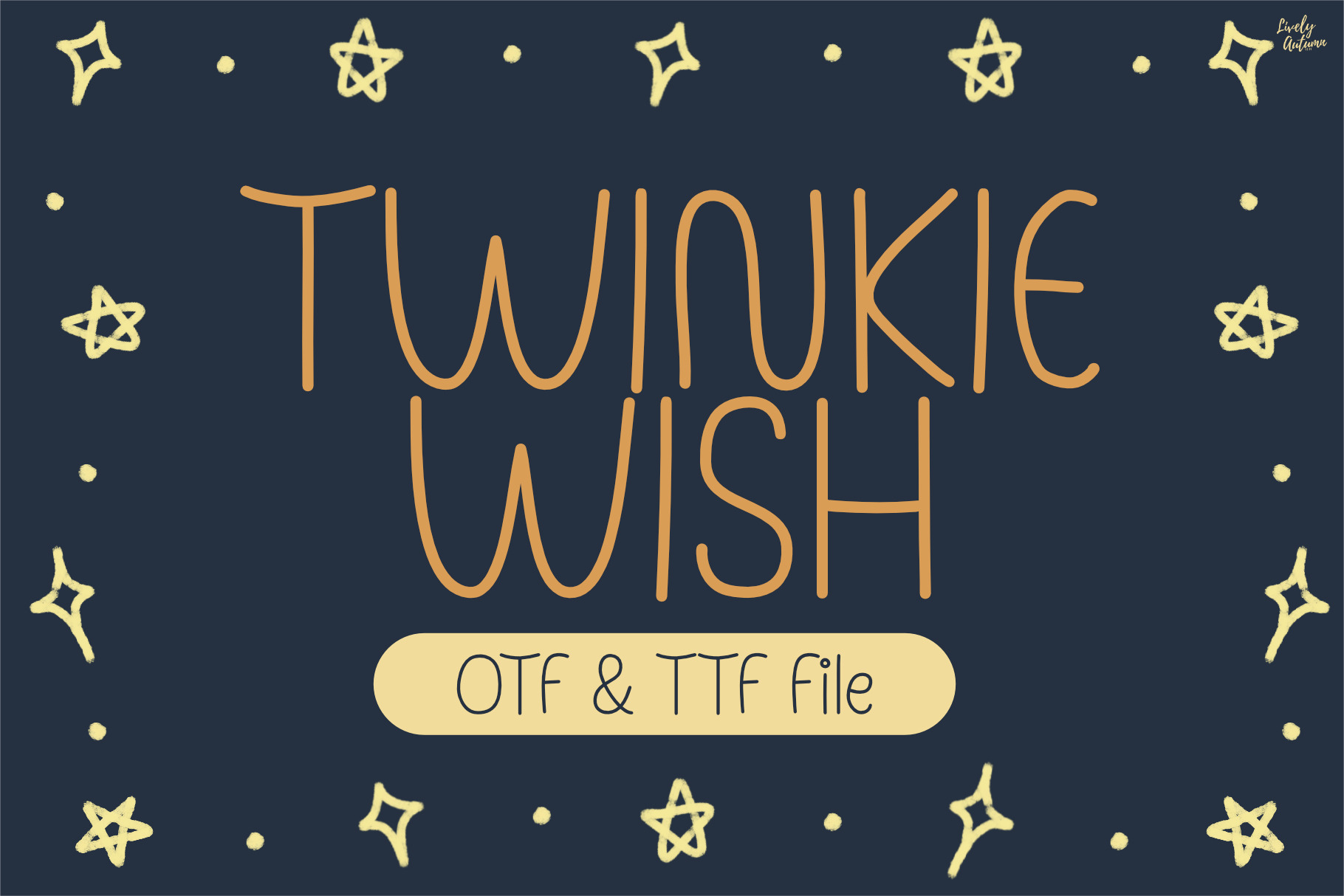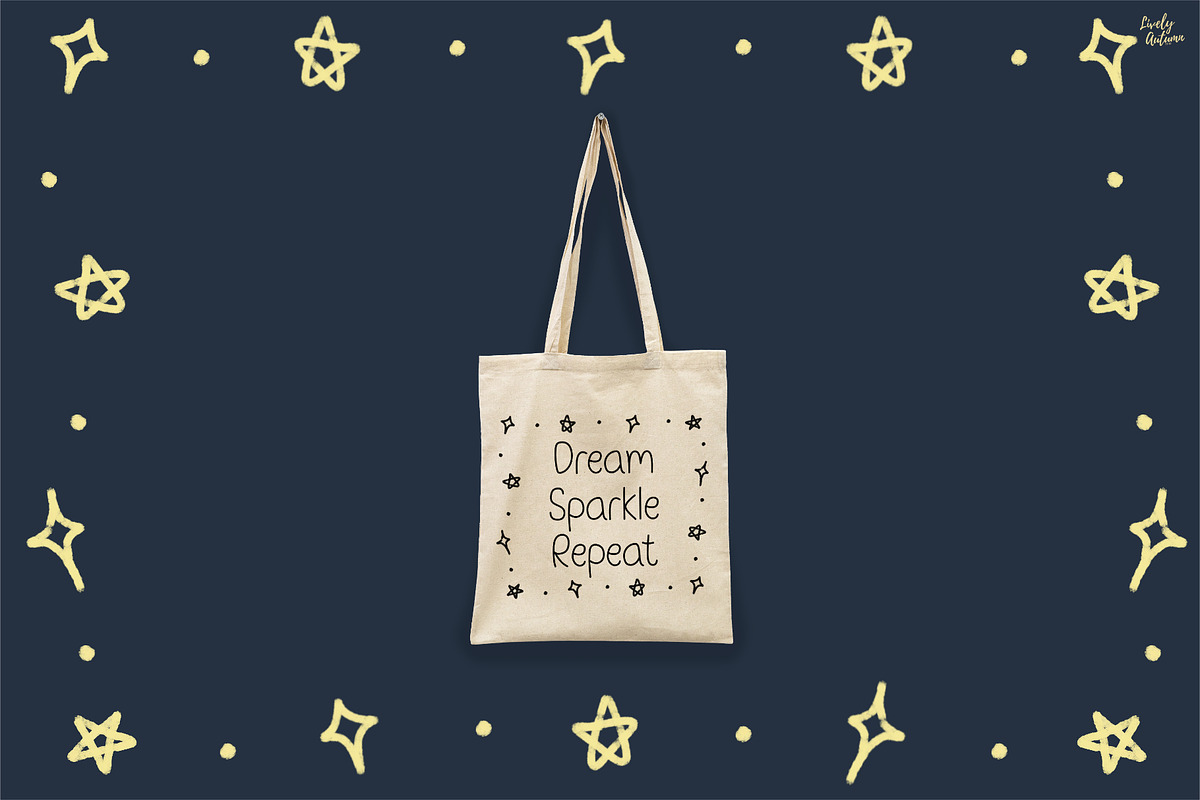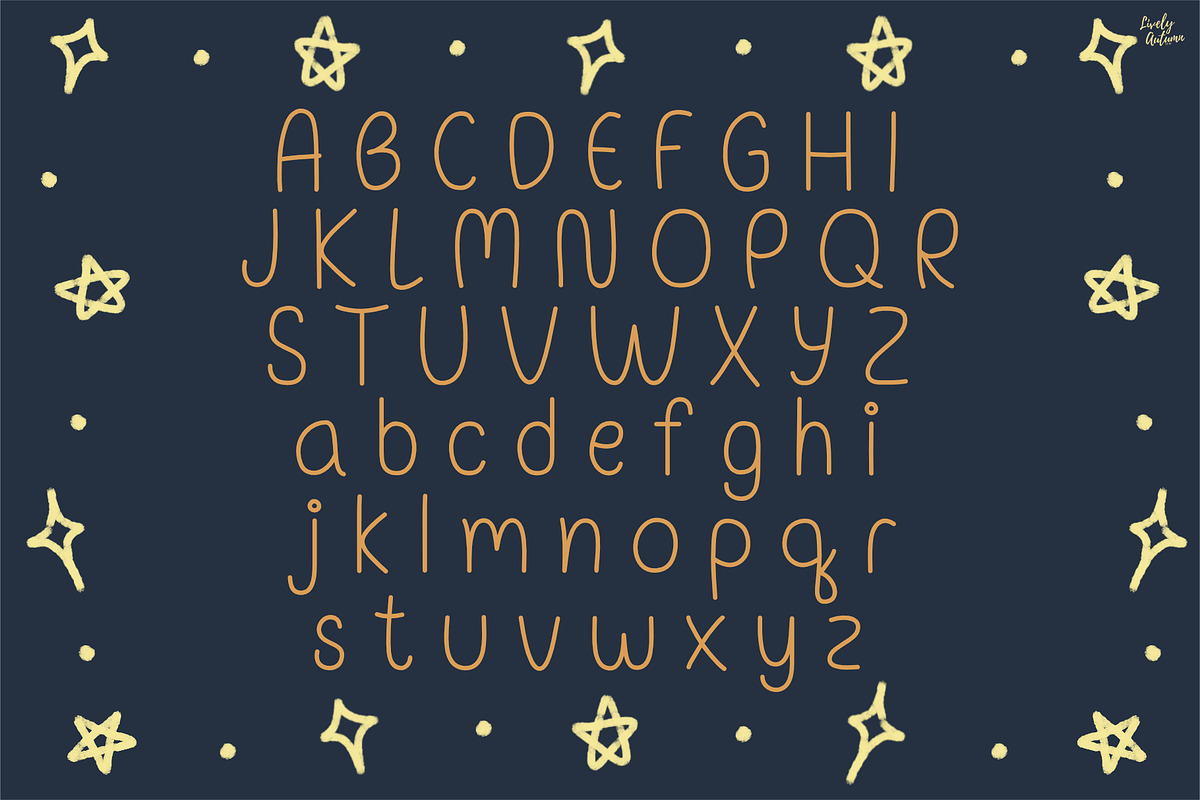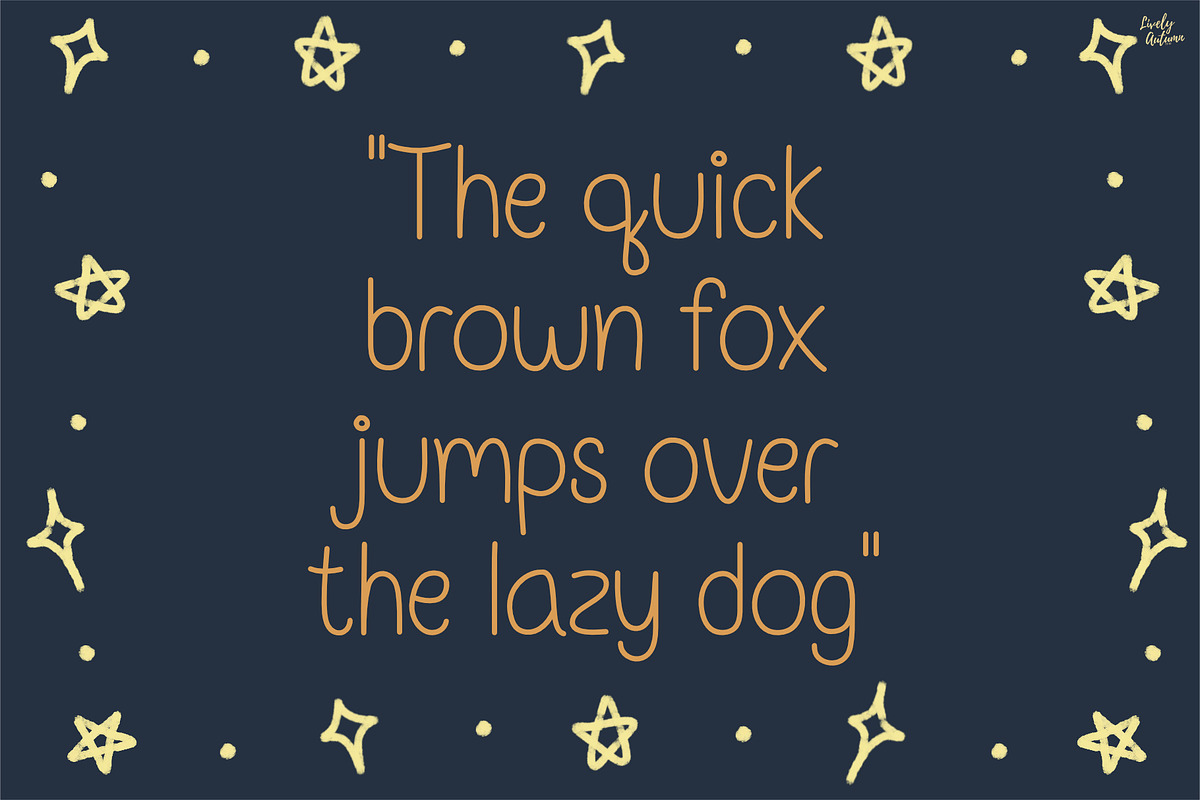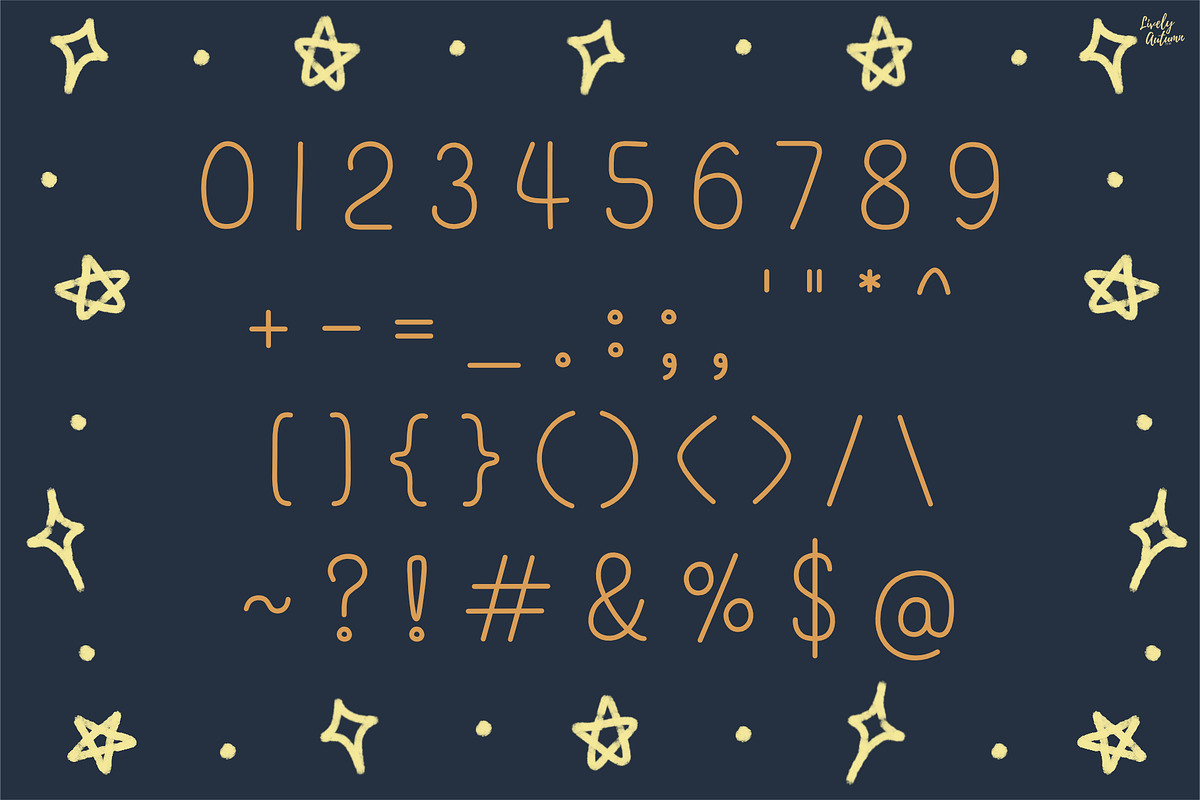
Twinkiewish | Curvy handwriting font
Twinkiewish is a cute, curvy, handwritten font. Perfect for your personal projects and various projects. From invitations to posters, social media graphics, journals, stickers and much more.
- Font includes: uppercase, lowercase, numbers, and punctuation